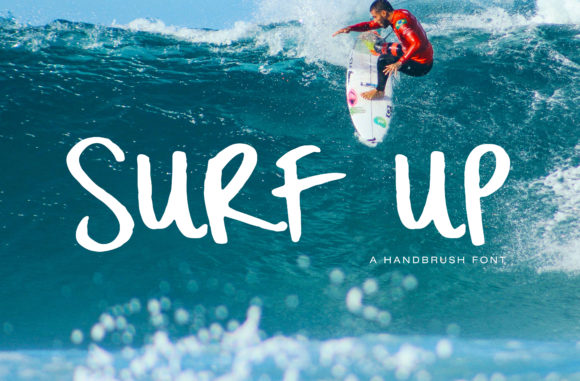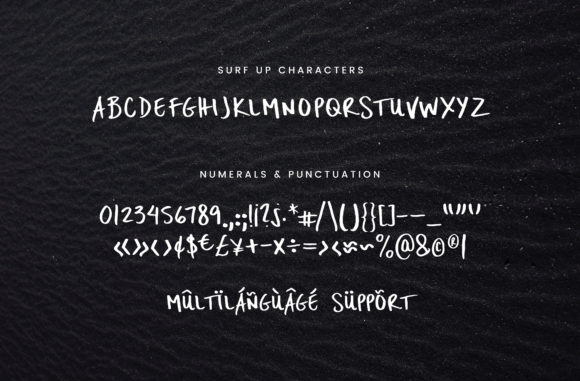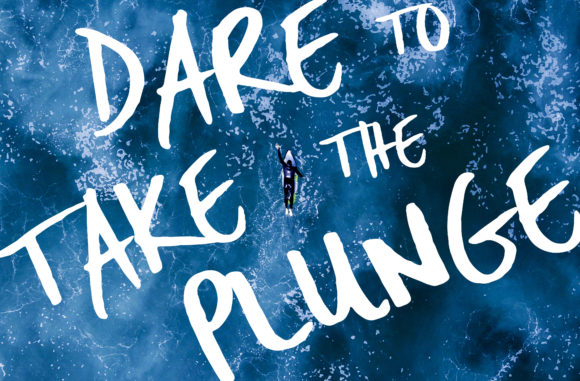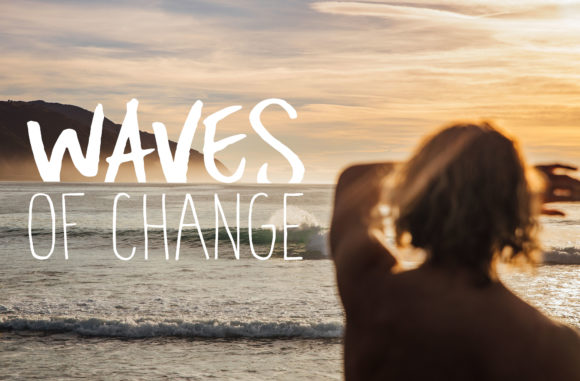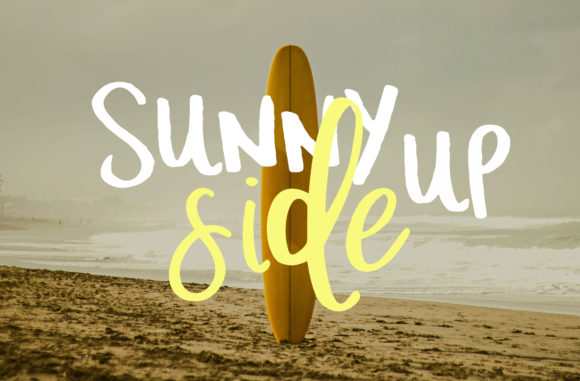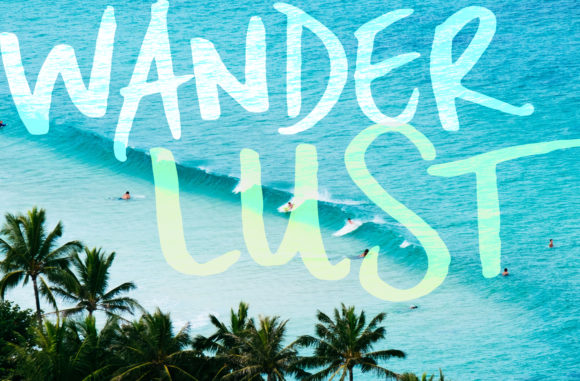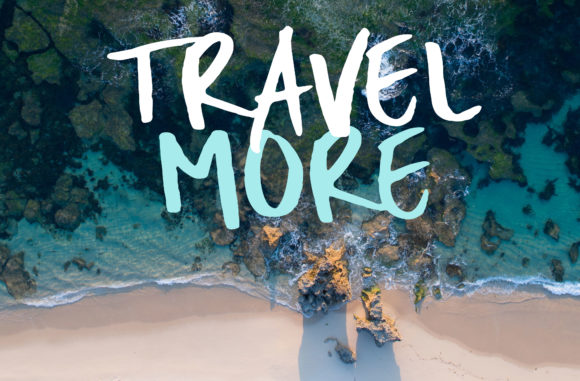
Surf Up Font
About Surf Up Font
The Surf Up is a hand brushed font. Let the curves of this rustic script add a beachy or outdoorsy vibe to your designs.